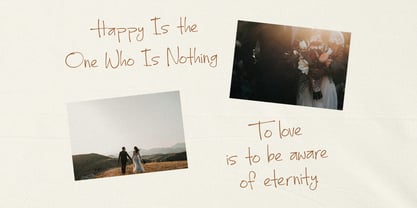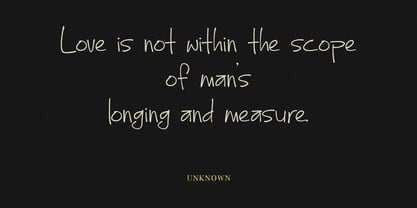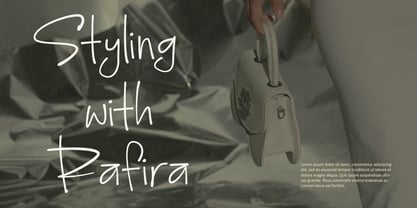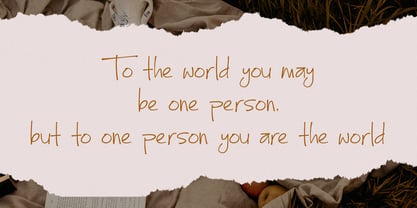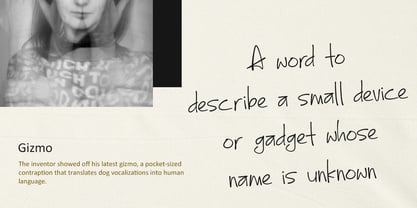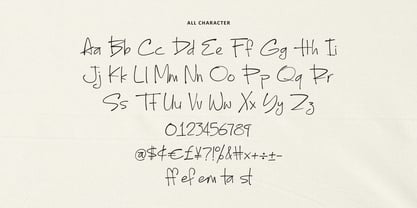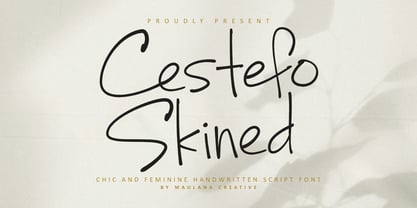
MC Cestefo Skined
by Maulana Creative
The MC Cestefo Skined Font Family was designed by Gilang Maulana and published by Maulana Creative. MC Cestefo Skined contains 1 styles. More about this family
Cestefo Skined is a chic and feminine handwritten script font designed to bring elegance and modern charm into your creative projects. With its natural strokes and casual handwritten style, this font is perfect for branding, wedding invitations, fashion editorials, social media posts, quotes, packaging, and lifestyle designs. Its versatile character set includes uppercase, lowercase, numbers, punctuation, and ligatures, making it suitable for both professional.
Whether you want to create a stylish logo, romantic stationery, or a trendy social media aesthetic, Cestefo Skined will add a unique and sophisticated touch to your designs.
Designers: Gilang Maulana
Foundry: Maulana Creative